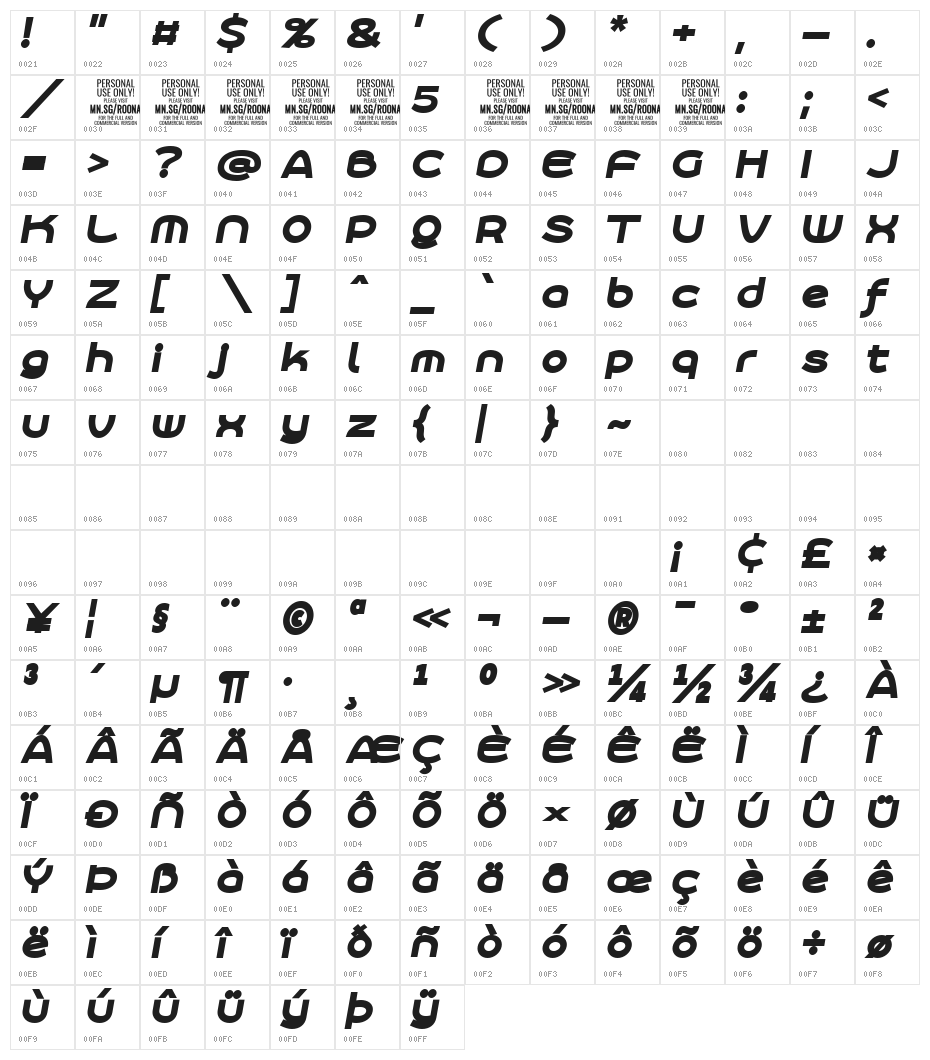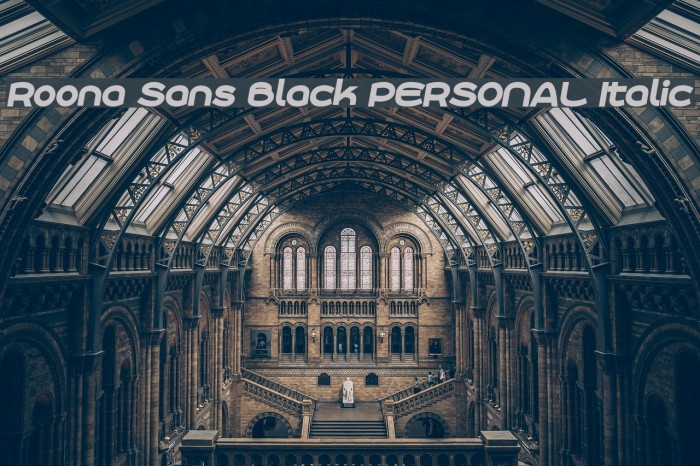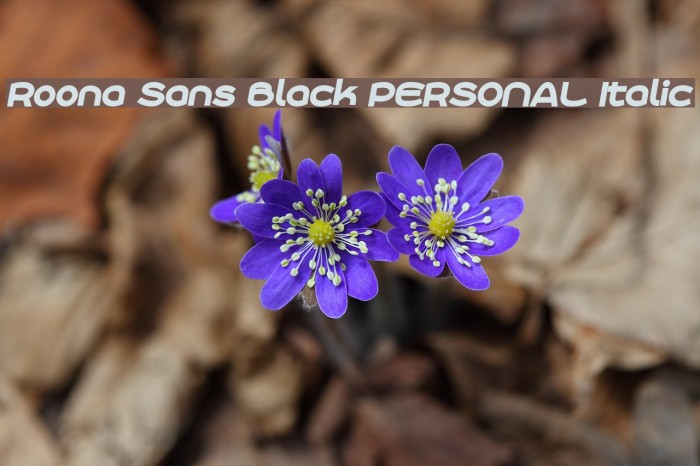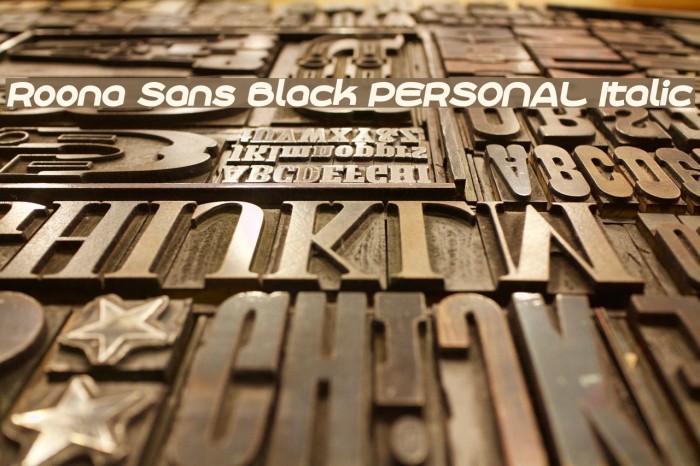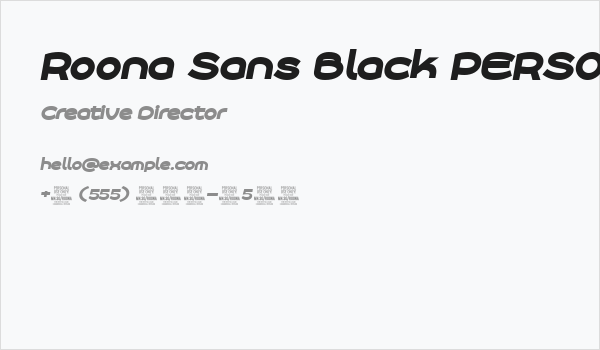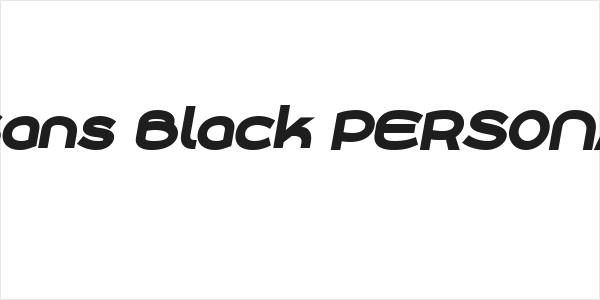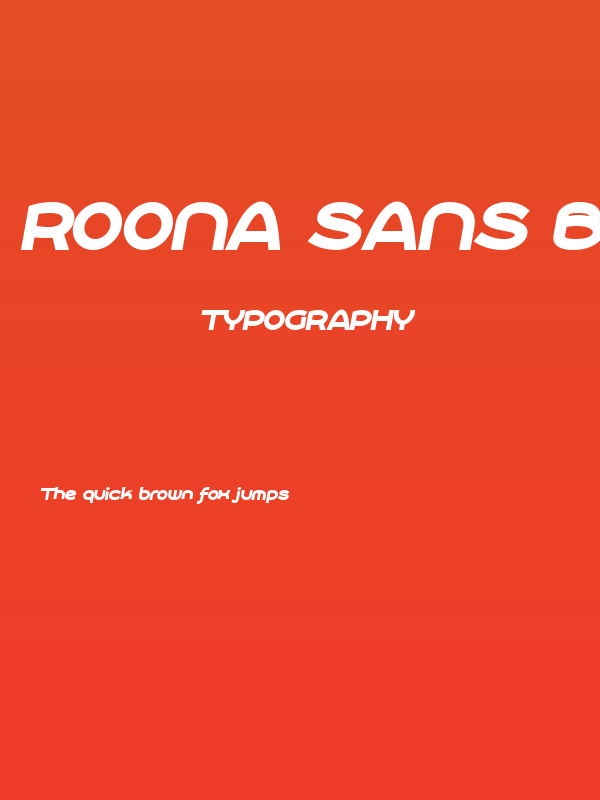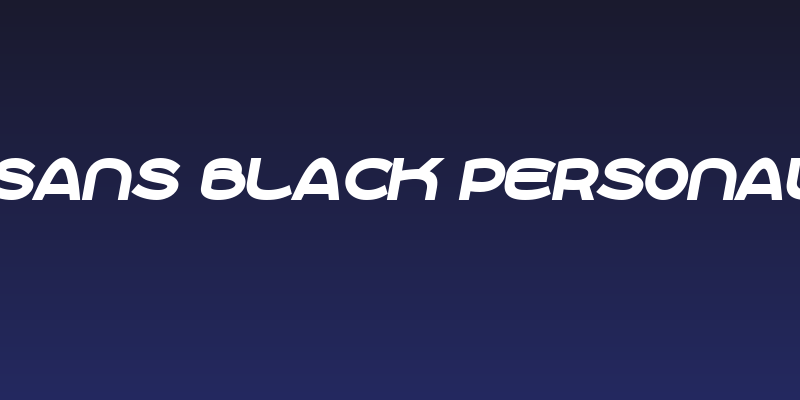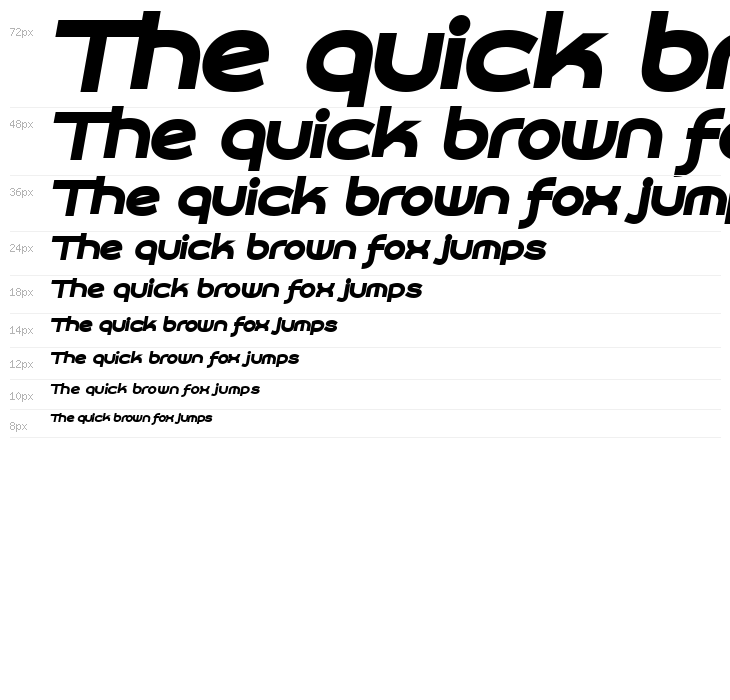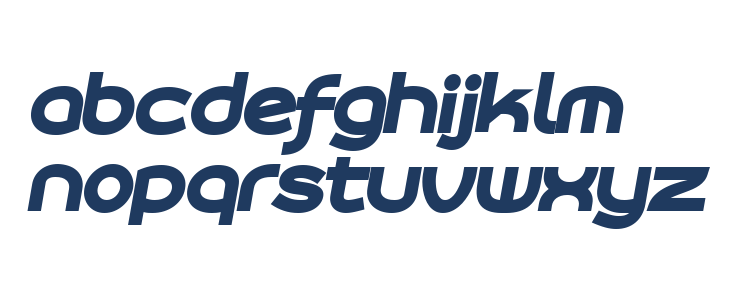
Roona Sans Black PERSONAL Italic Font
Roona Sans Black PERSONAL Italic Description
This font exhibits a bold and dynamic style with a modern twist. The characters are italicized, giving a sense of motion and energy. The strokes are thick and consistent, providing a strong visual impact. The design features smooth curves and sharp angles, creating a sleek and contemporary appearance. The uppercase and lowercase letters maintain a uniform style, while the numerals and special characters complement the overall aesthetic. This font is ideal for making a bold statement in any design project.
Use CaseHeadlines, Logos, Branding
Proposed ProjectsIdeal for branding, advertising, and headlines where a strong and modern impression is desired.